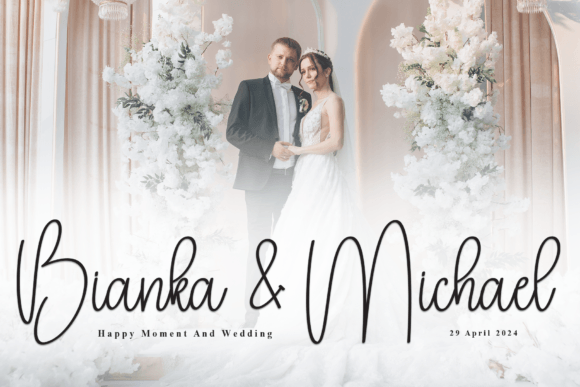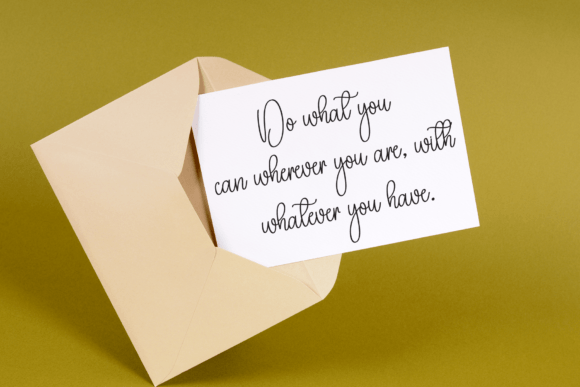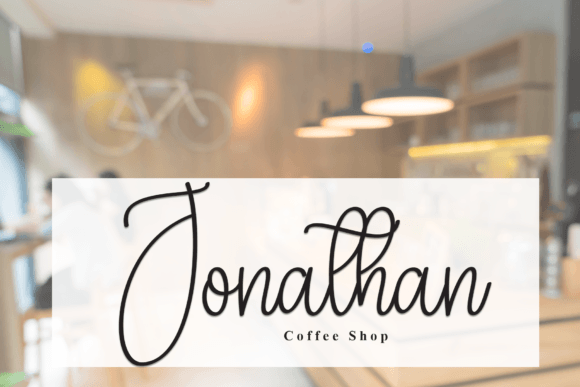
Introduction to Elaine Signature Font
Elaine Signature is a sweet and friendly handwritten font.
Elegant and delicate, this font is ideal for writing wedding invitations, cards, or any other design that might need a fun touch .
Why Choose Elaine Signature Font?